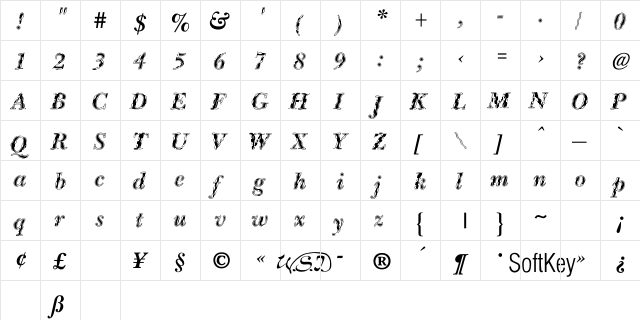
Peggy Bold Italic Regular
Peggy Bold Italic takes a measured approach to typography — its balanced proportions and neutral character make it a reliable workhorse for both digital and print work. The slanted form adds forward momentum and visual energy. Its bold stroke weight gives it real presence on the page.
Pro Tip: Use Peggy Bold Italic for emphasis, pull quotes, and subheadings where its slanted energy can add rhythm to the layout.